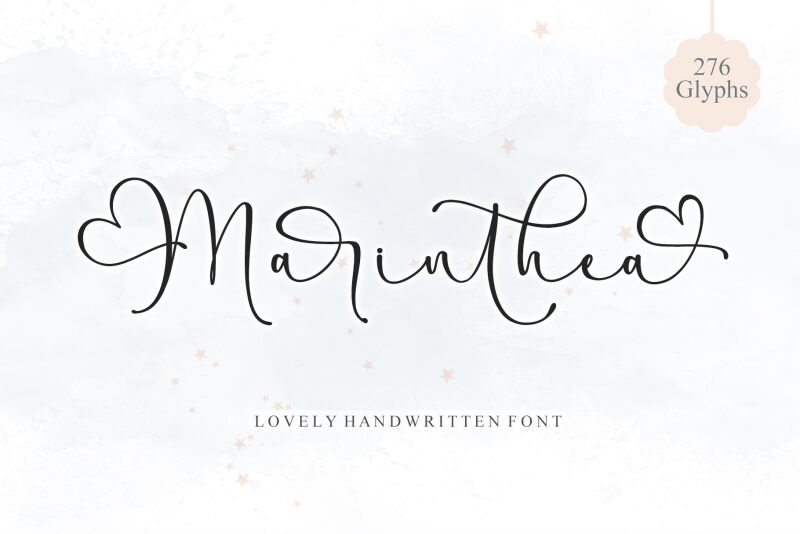
Marinthea
Marinthea, a mesmerizing calligraphy font by Letterafa Studio, effortlessly combines elegance and sophistication. With its light weight, this font exudes a delicate and graceful aura, perfect for romantic wedding invitations or whimsical greeting cards. The flowing strokes and intricate details of Marinthea add a touch of enchantment to any project, making it equally suitable for luxury branding or stylish blog headers. Whether you're designing an exquisite logo or crafting captivating social media graphics, let Marinthea's calligraphic charm elevate your creations to new heights of beauty and allure.